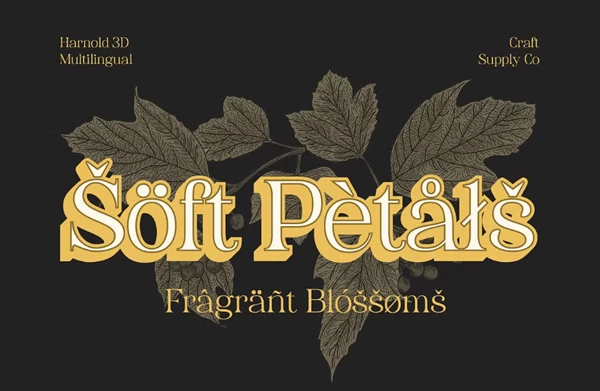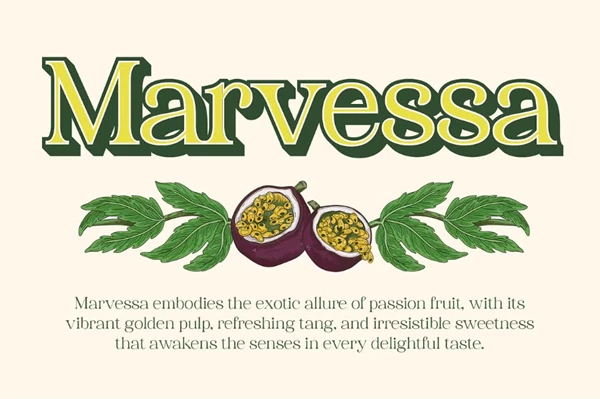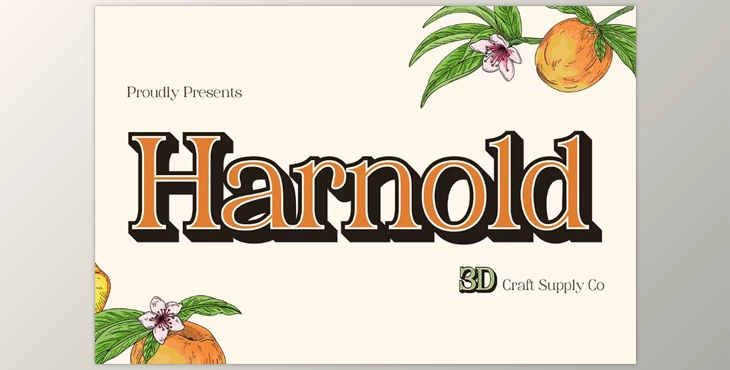
Harnold 3D Font:
Harnold 3D subtle three-dimensional effect improves the font’s sophistication by adding intrigue without compromising its grace, as well as enhancing the polished elegance the project aims for. Harnold 3D is appropriate for luxury branding and editorial layouts, yet it is versatile enough for high-end logos and elegant advertising across several industries, including fashion and beauty.
"Harnold 3D Font" Samples: